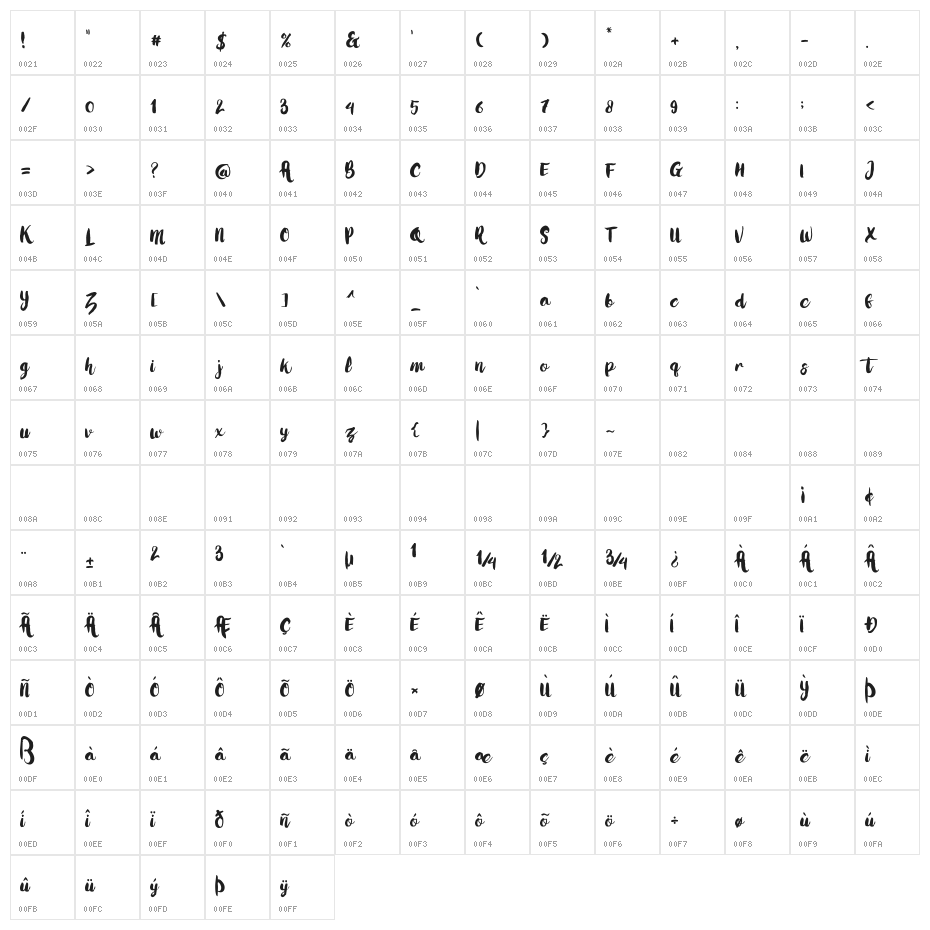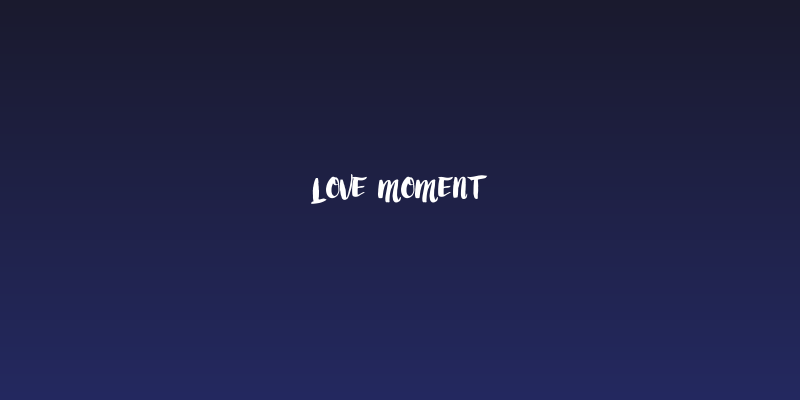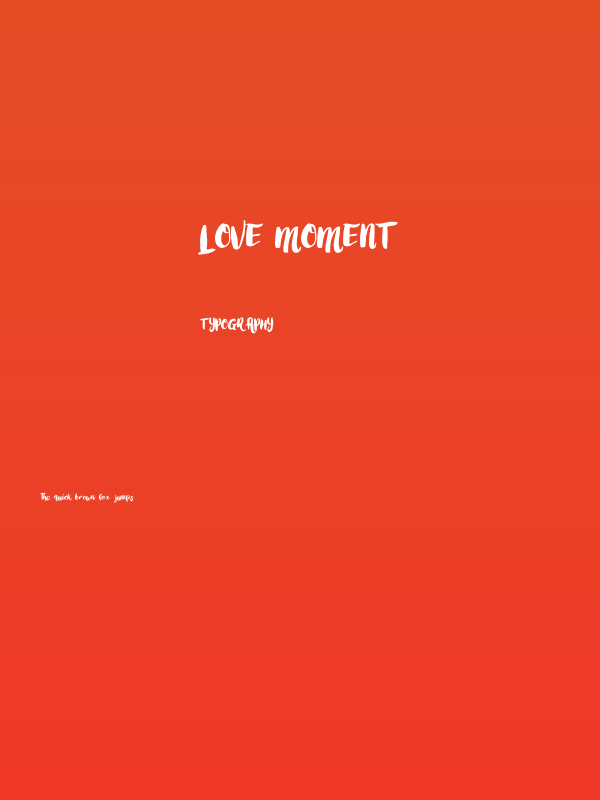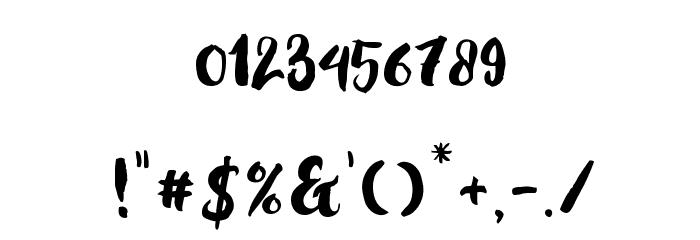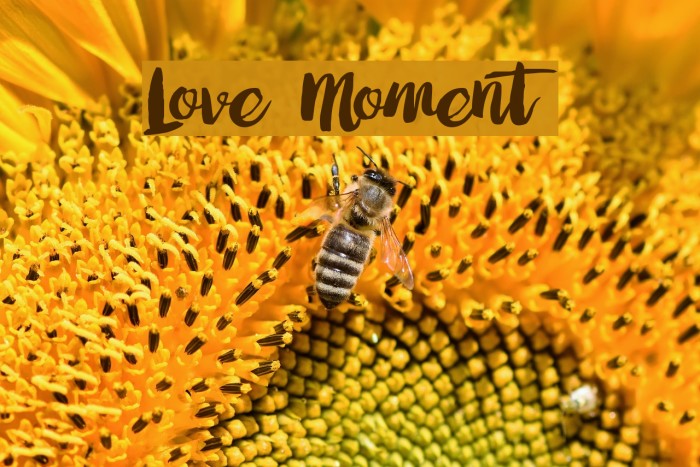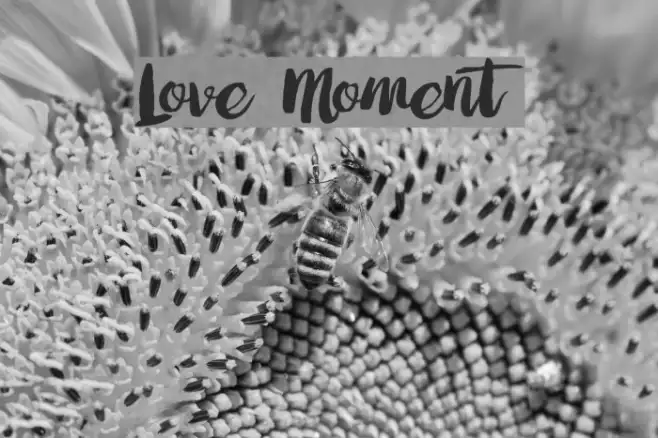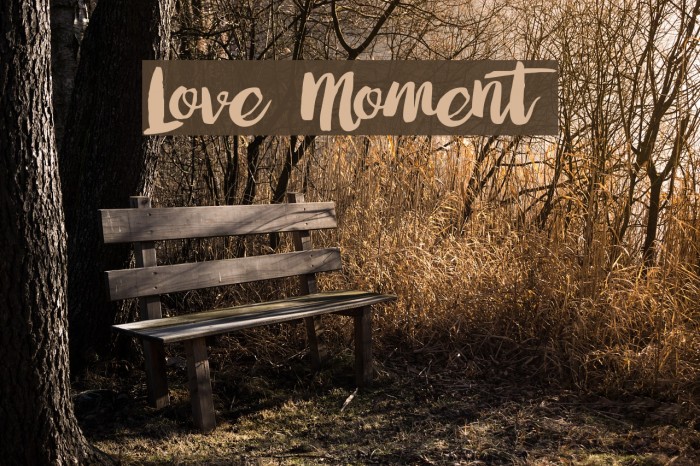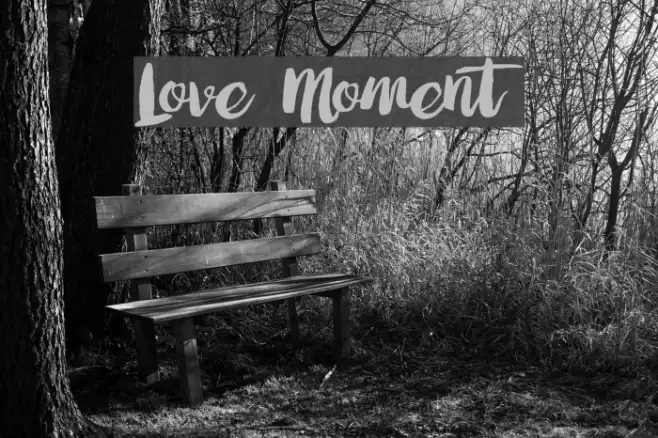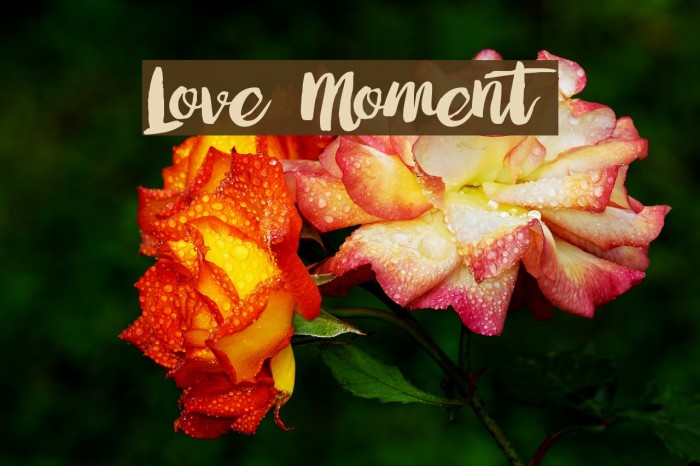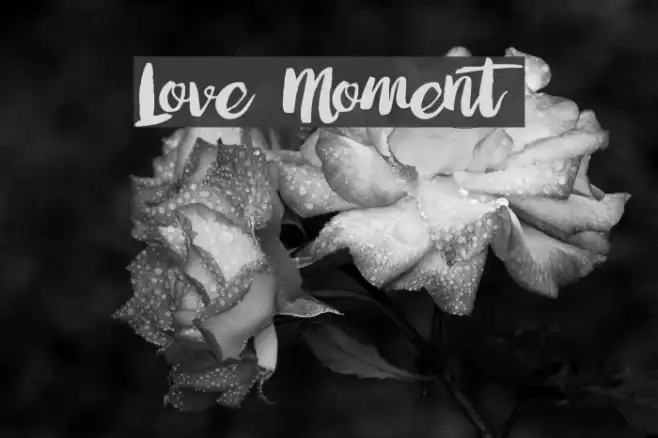
Love Moment Font
Love Moment Description
This font features a bold and expressive script style with a hand-drawn appearance. The letters are fluid and connected, giving a sense of movement and elegance. The uppercase characters are slightly larger and more pronounced, while the lowercase letters maintain a consistent flow. The numbers and special characters are designed to match the overall aesthetic, providing a cohesive look. The strokes are thick and dynamic, adding to the font's lively character. This style is perfect for creating a personal and artistic touch in any design project.
| Proposed Projects | Ideal for wedding invitations, greeting cards, branding, and social media graphics. |